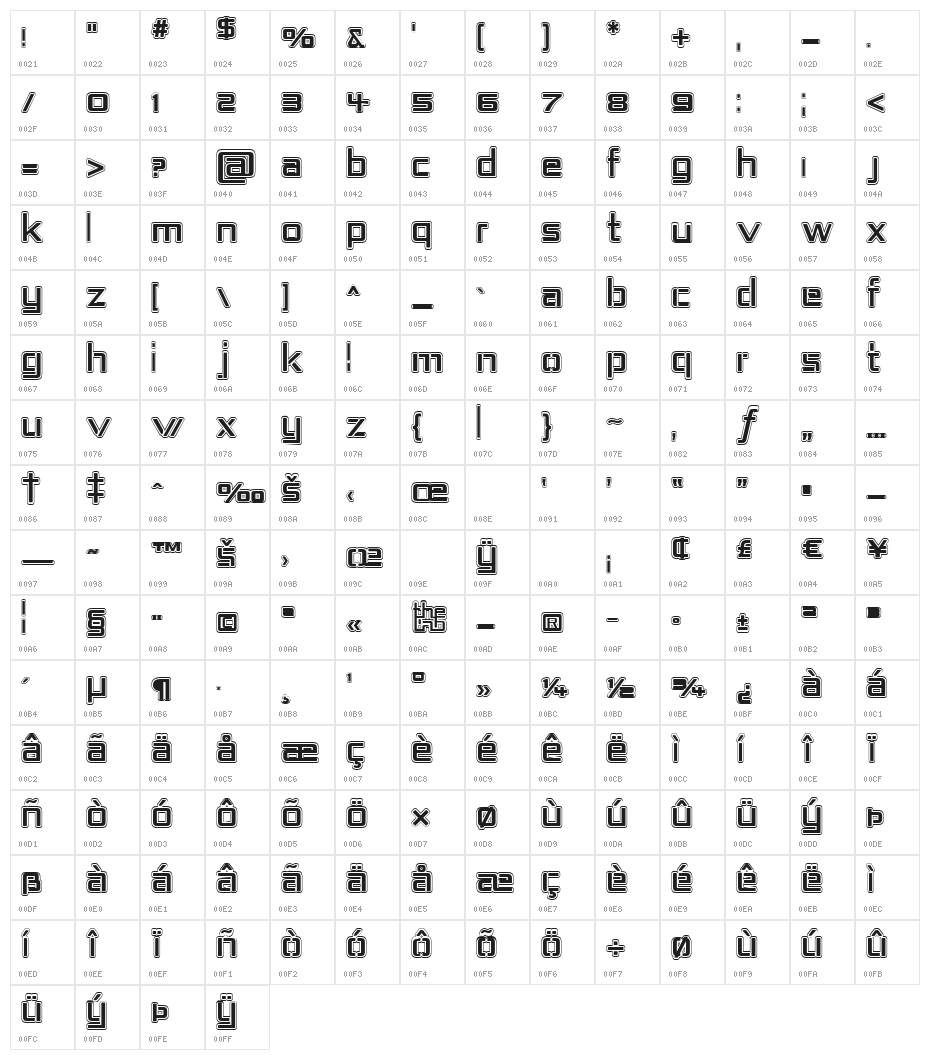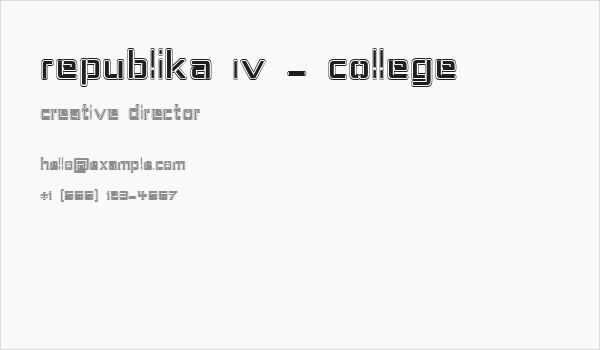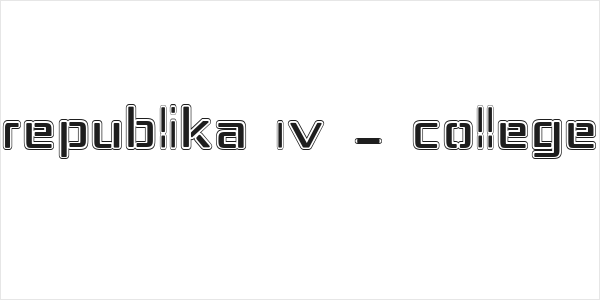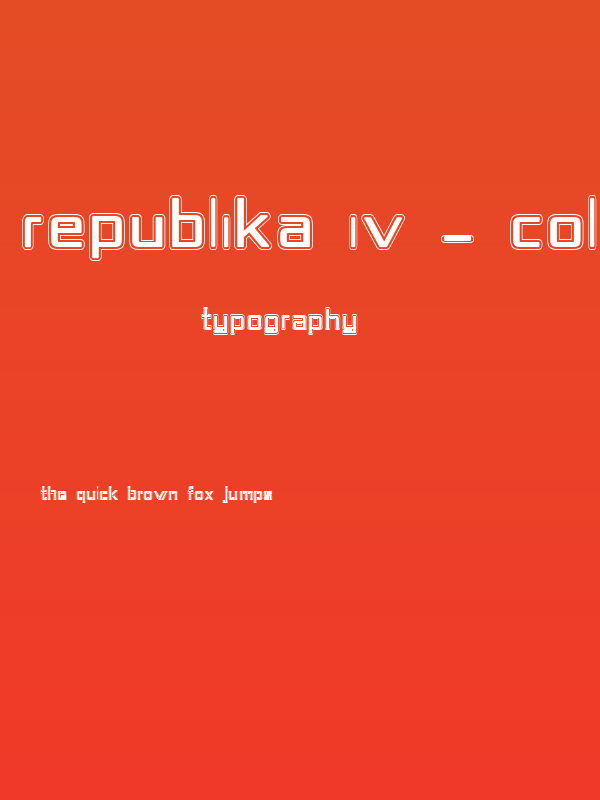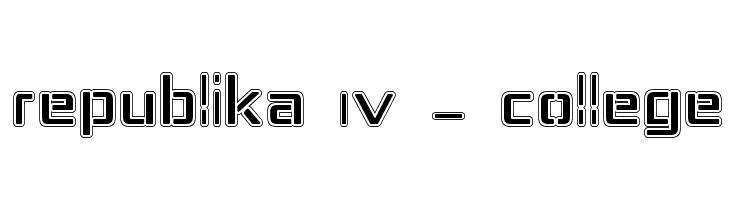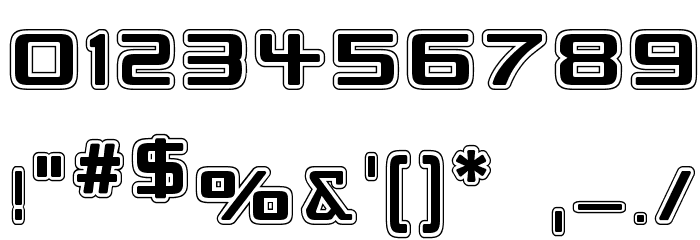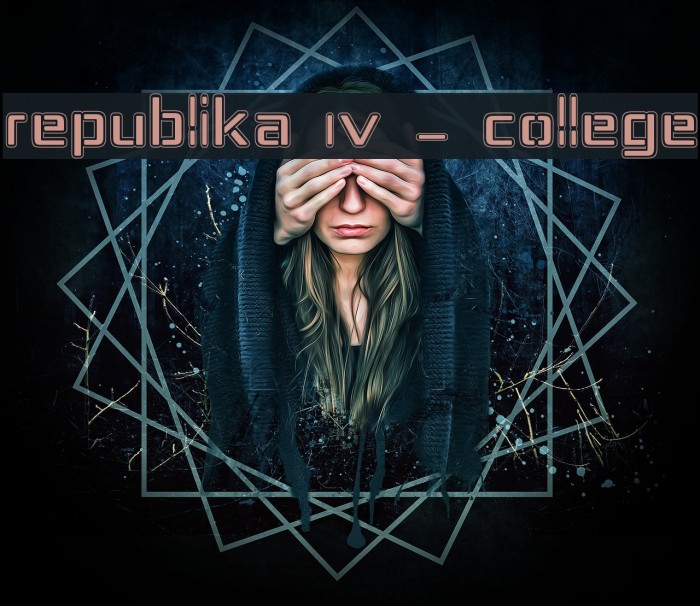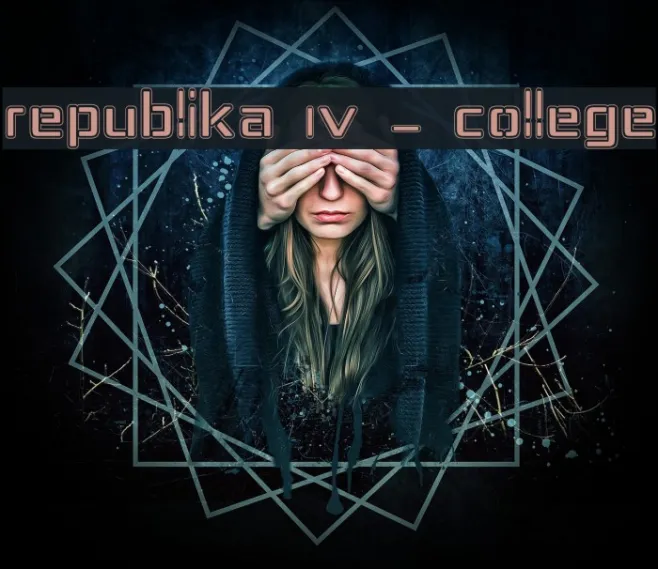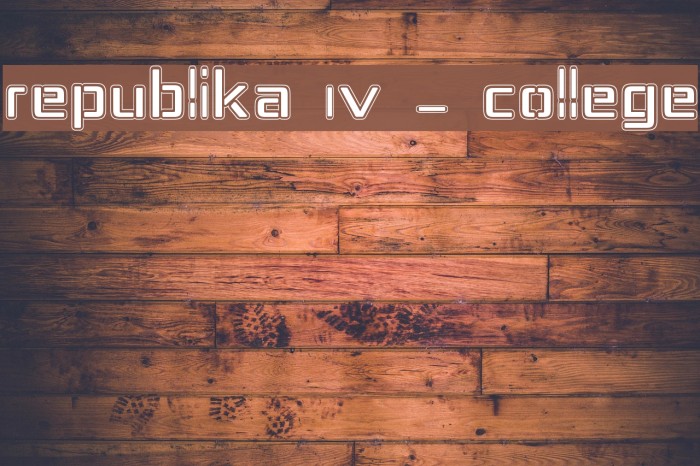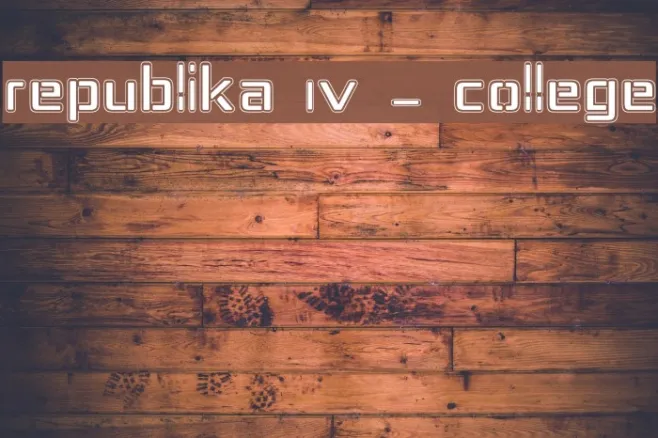
Republika IV - College Font
Republika IV - College Description
This font features a bold, geometric design with a distinct outline that gives it a three-dimensional appearance. The characters are uniformly structured with a consistent stroke width, creating a cohesive and modern look. The uppercase and lowercase letters maintain a similar height, enhancing readability and balance. The numerals and special characters are designed to match the overall aesthetic, providing a seamless integration across different text elements. The font's style is both contemporary and versatile, making it suitable for a variety of design applications.
| Proposed Projects | Ideal for sports branding, posters, headlines, and any project requiring a bold, impactful typeface. |